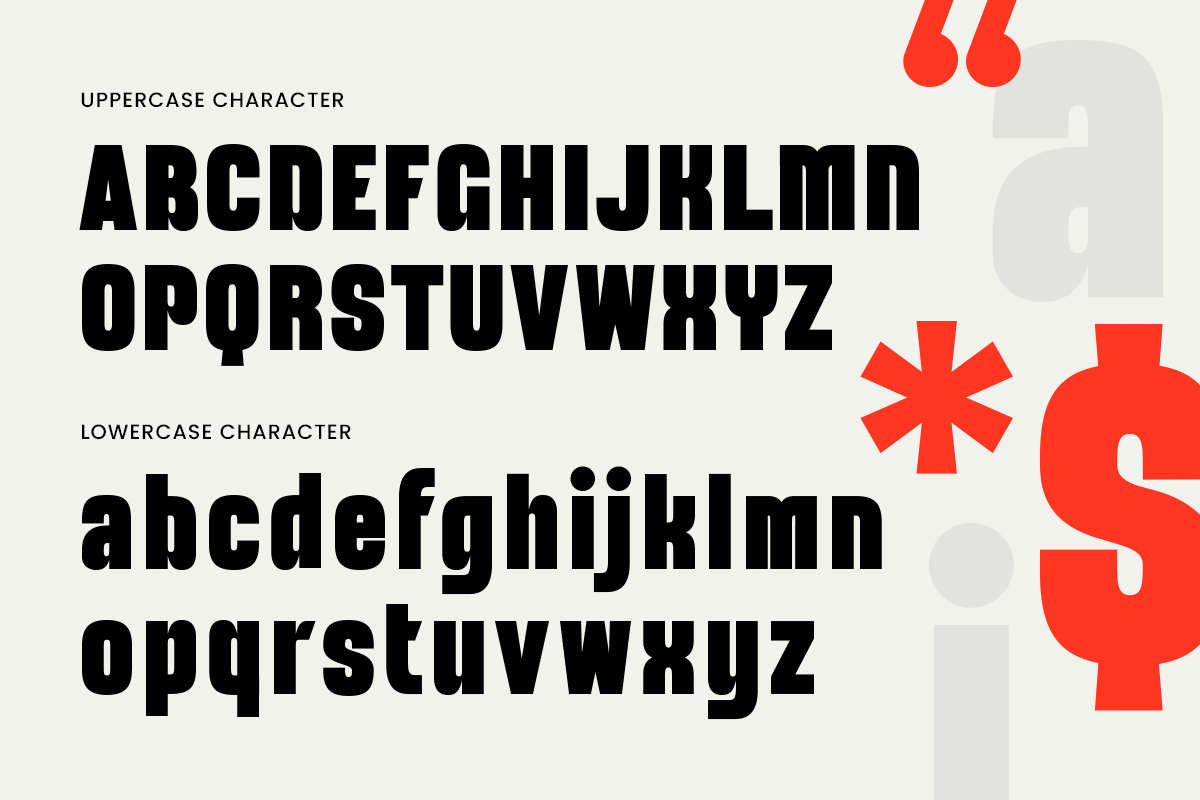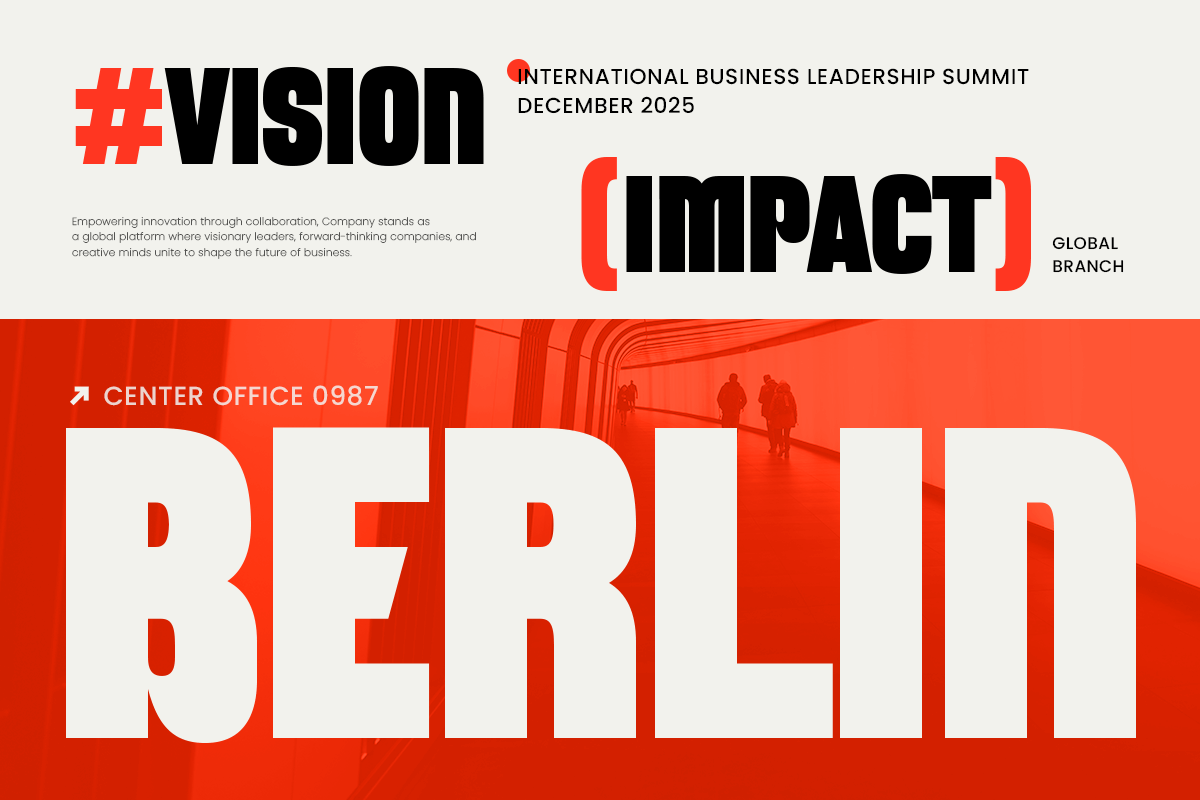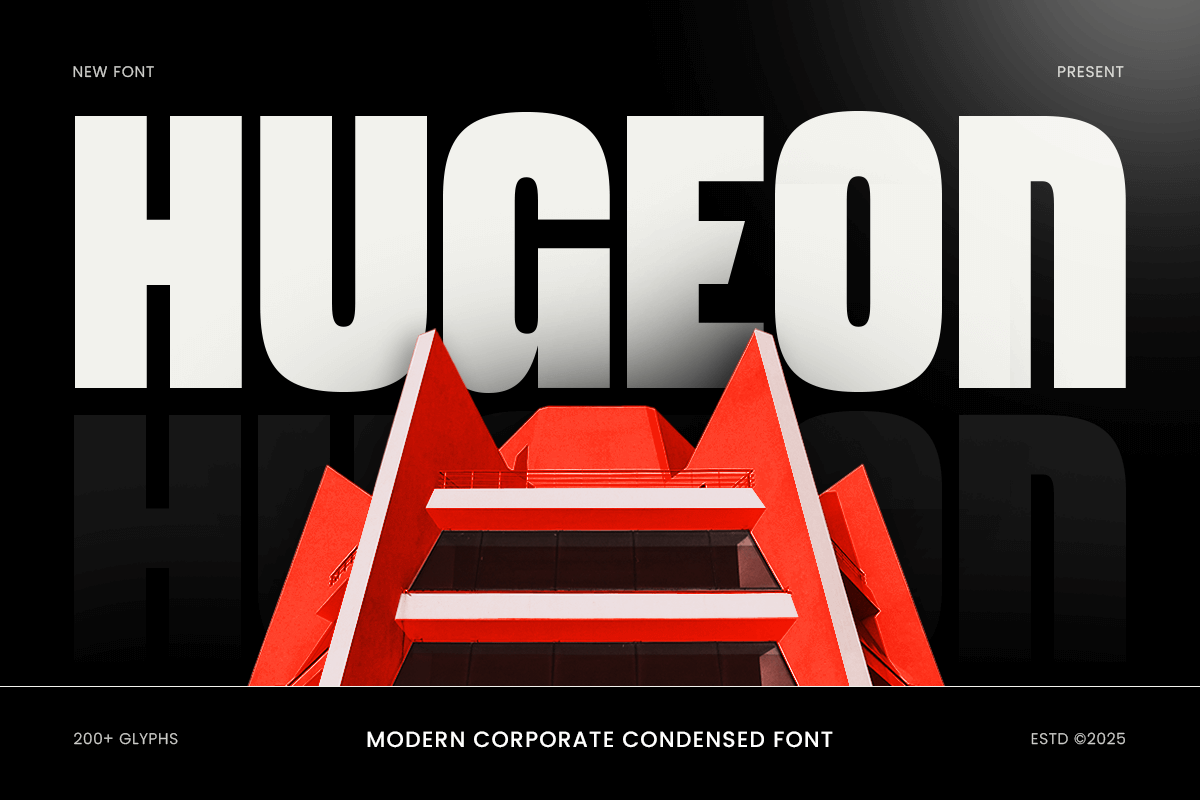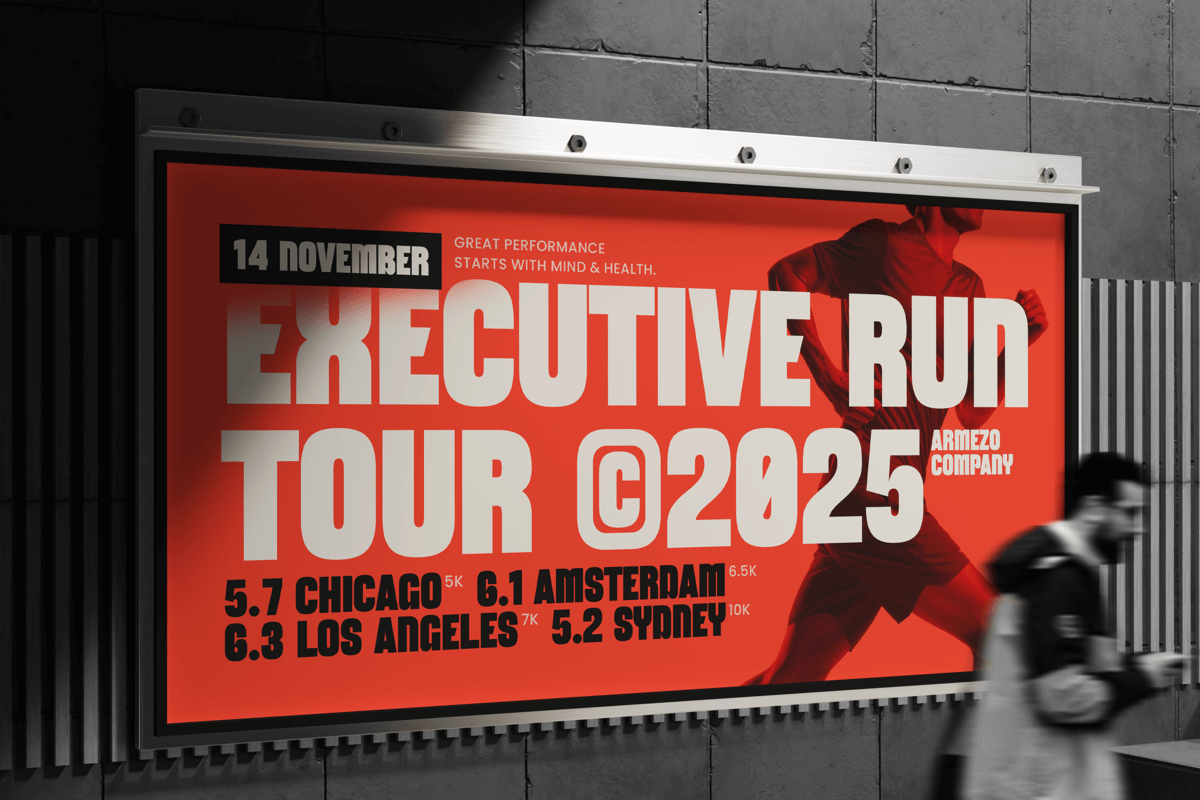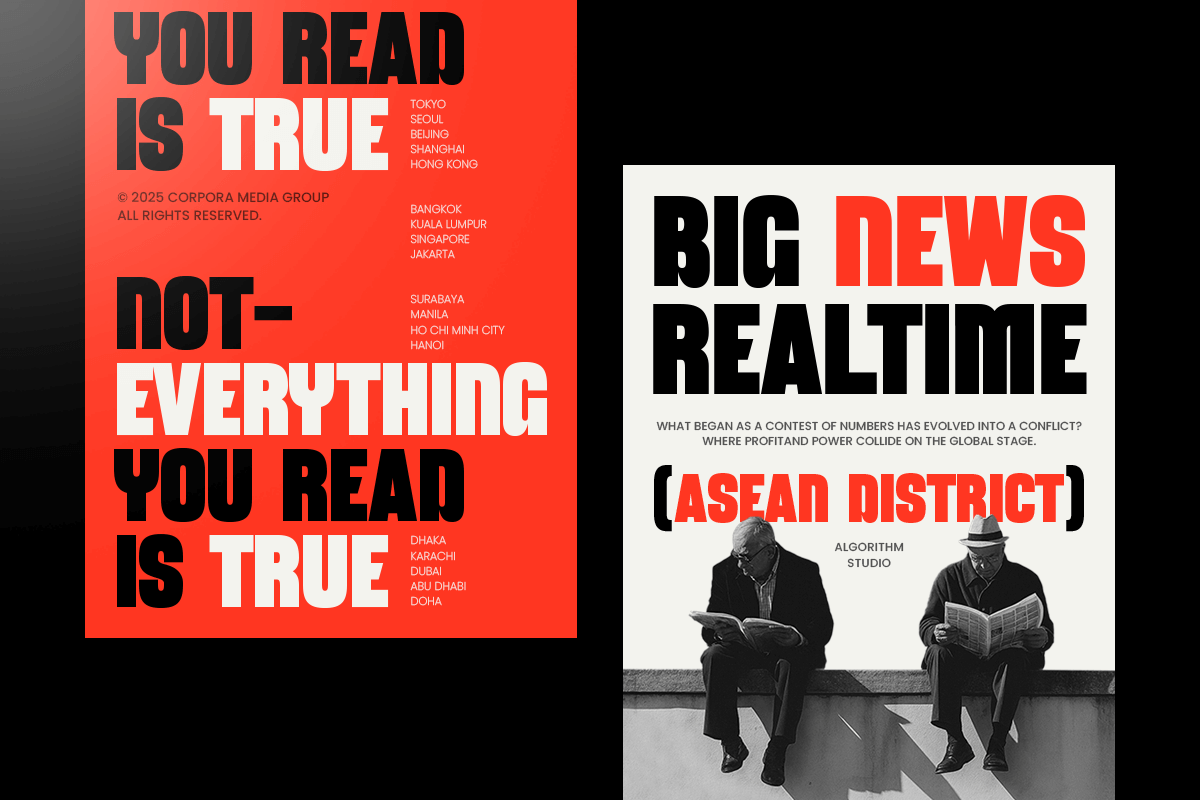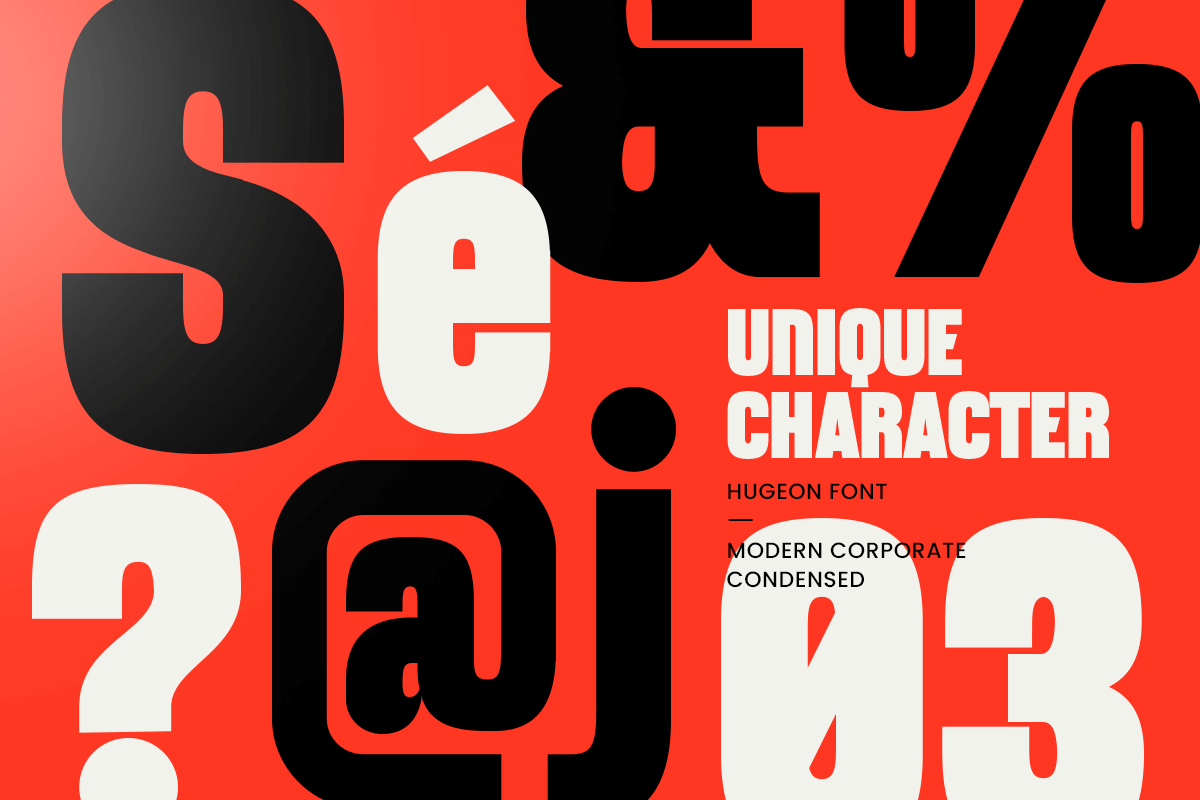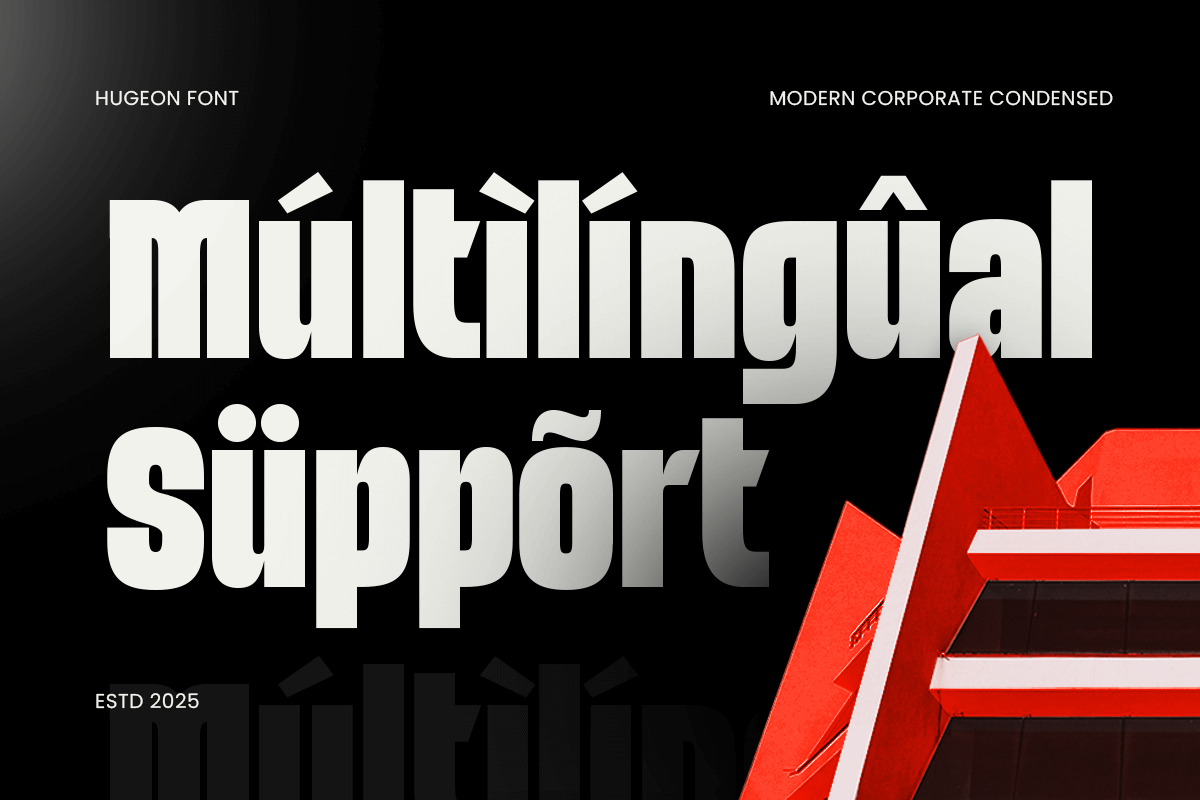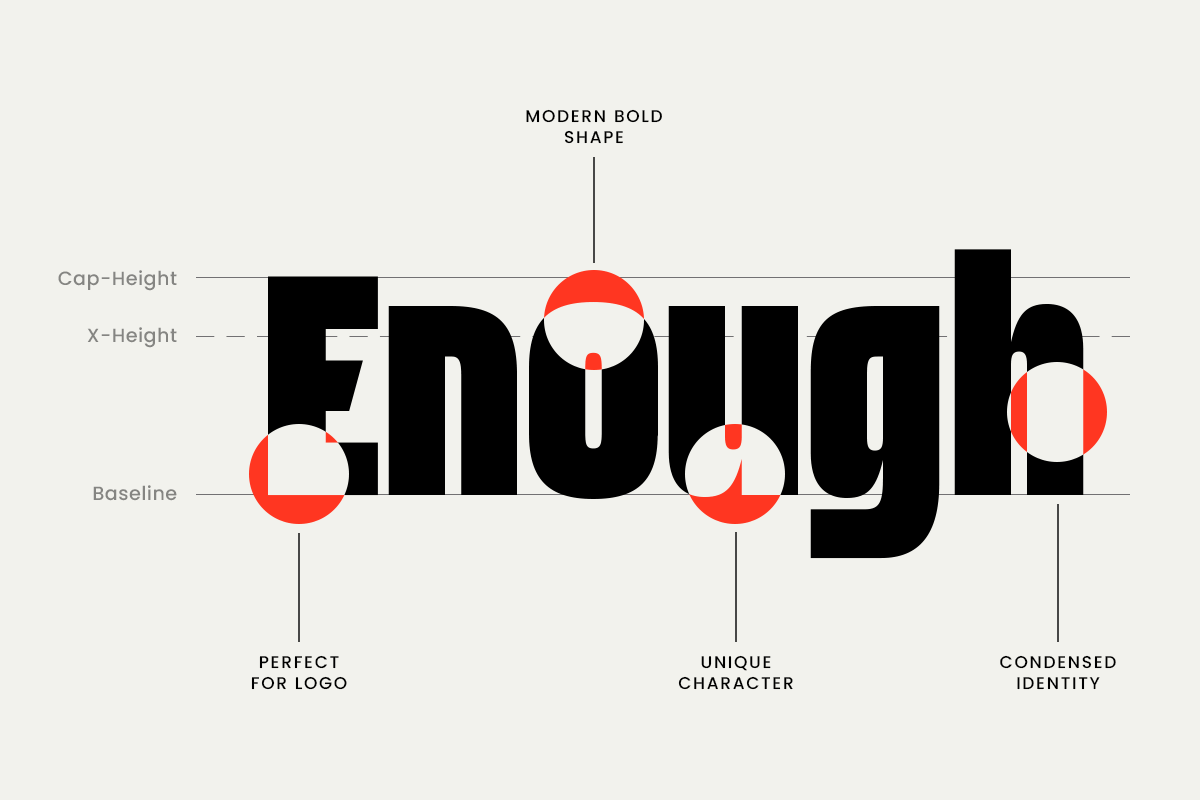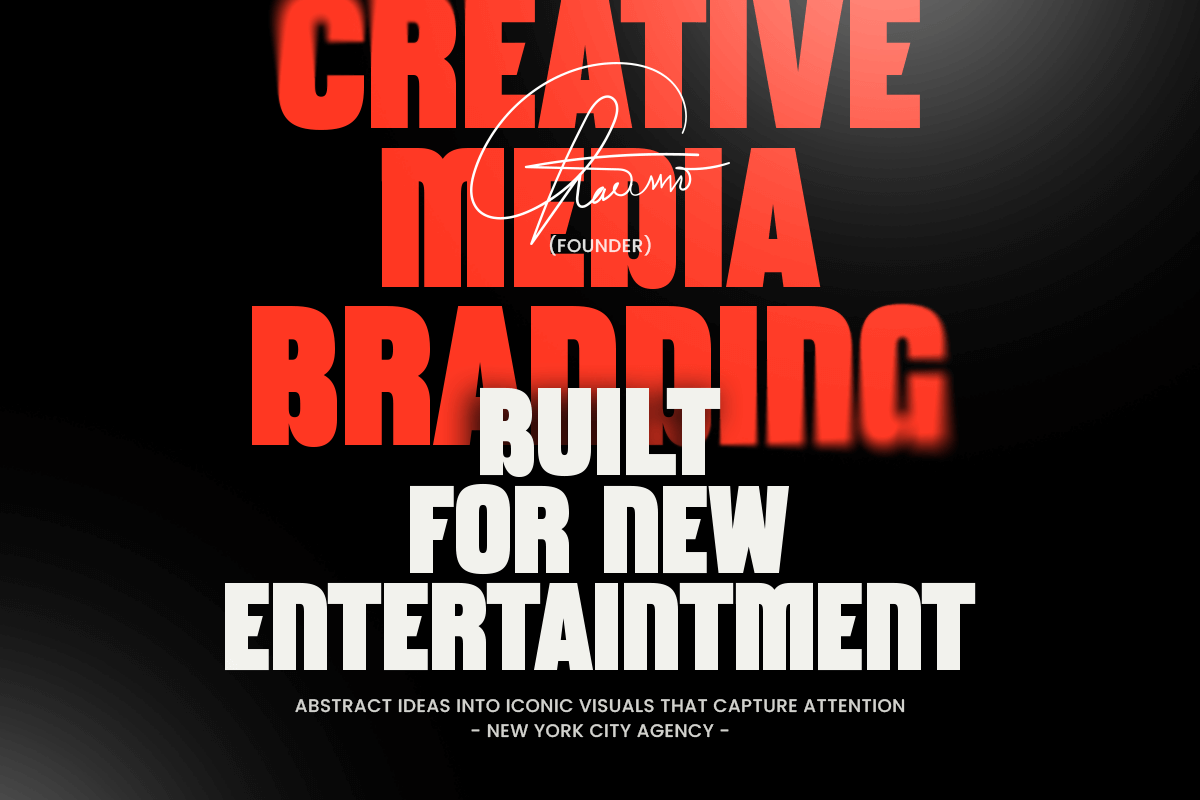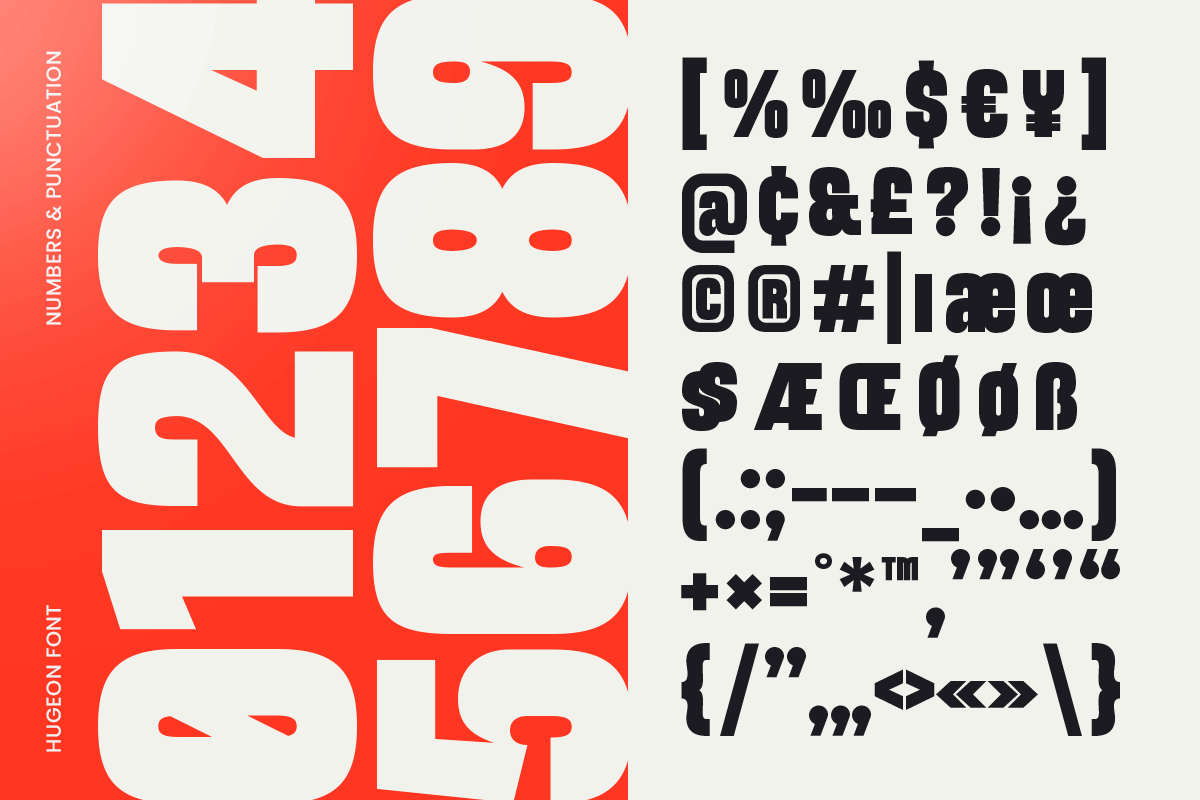
Hugeon - Modern Condensed Font
Hugeon – Modern Corporate Condensed Font
Hugeon is a modern corporate condensed font crafted to deliver a clean, strong, and professional visual identity. With its narrow proportions, sharp structure, and balanced spacing, Hugeon is perfect for corporate branding, logos, headlines, presentations, editorial layouts, and business-focused designs.
Designed for efficiency and clarity, Hugeon helps maximize space while maintaining excellent readability and a confident corporate tone. Its condensed style makes it ideal for modern companies, agencies, startups, and professional brands that require a sleek and authoritative typographic presence across print and digital media.
Hugeon – Modern Corporate Condensed Font Features:
* Modern condensed style with corporate character
* Ideal for branding, logos, headlines, and business design
* Uppercase, lowercase, numerals, and punctuation included
* Clean spacing and professional visual balance
* Perfect for corporate, editorial, and modern identity projects
Build a strong and professional brand image with Hugeon – the modern condensed font for corporate excellence.